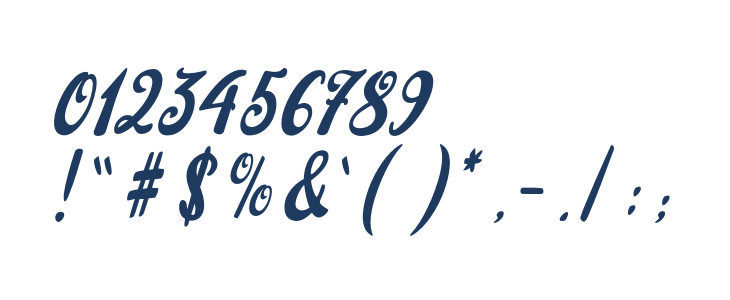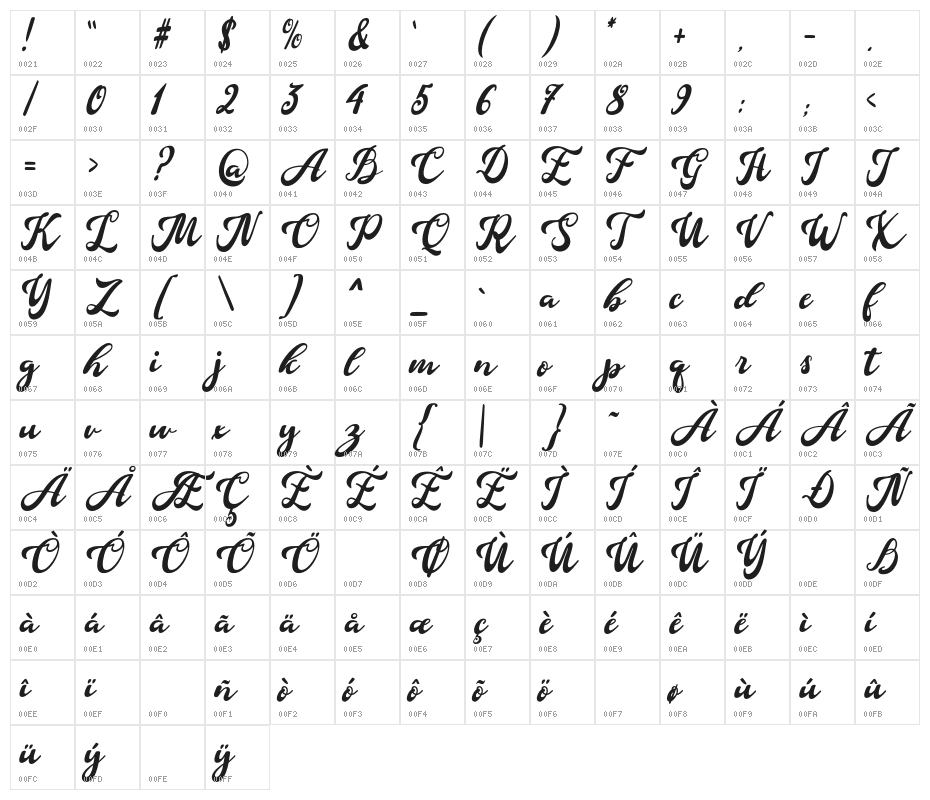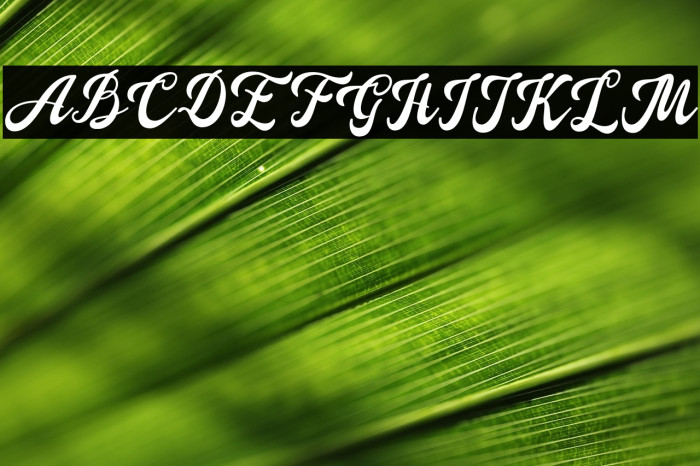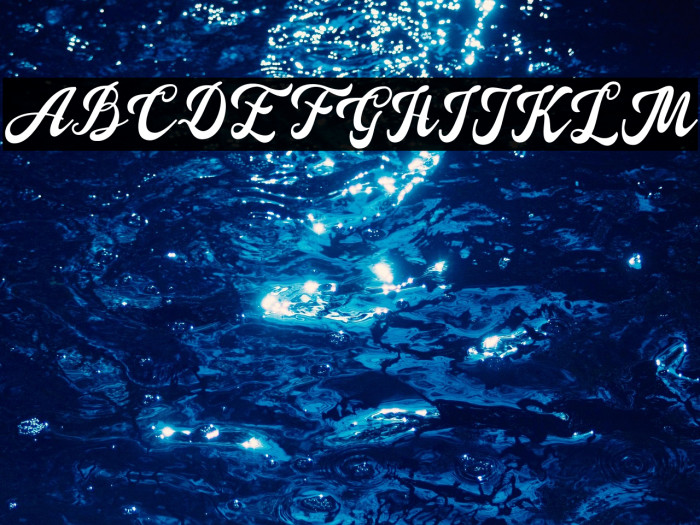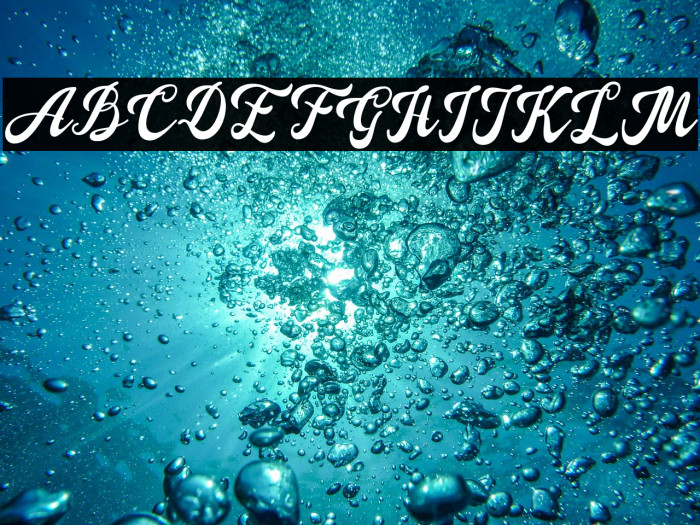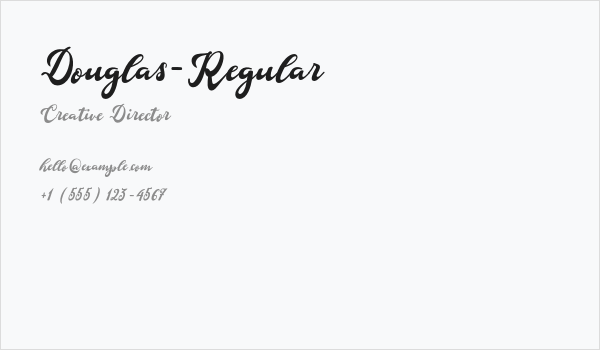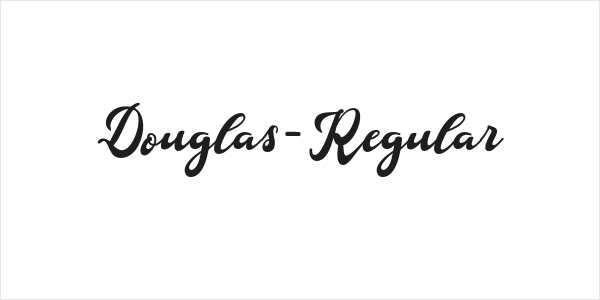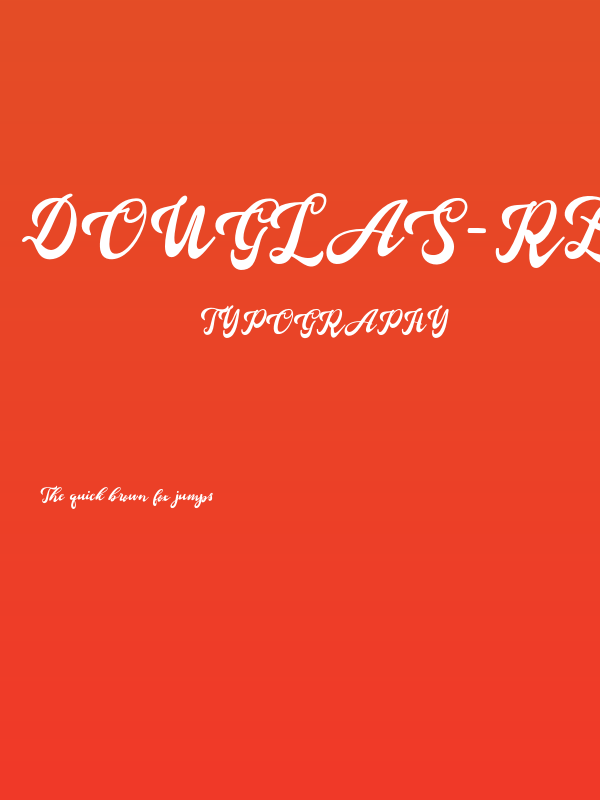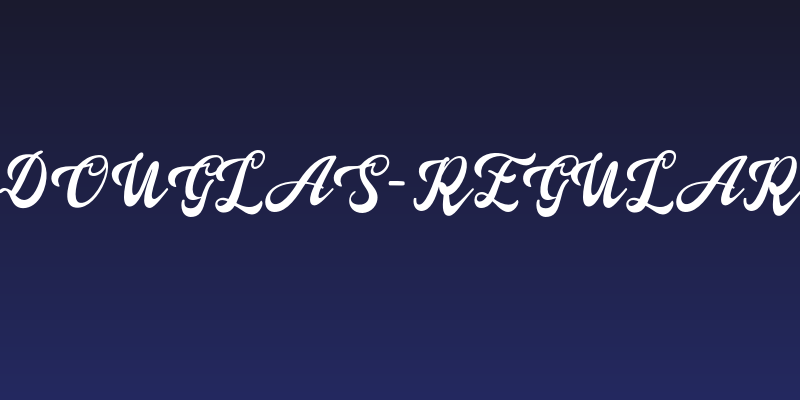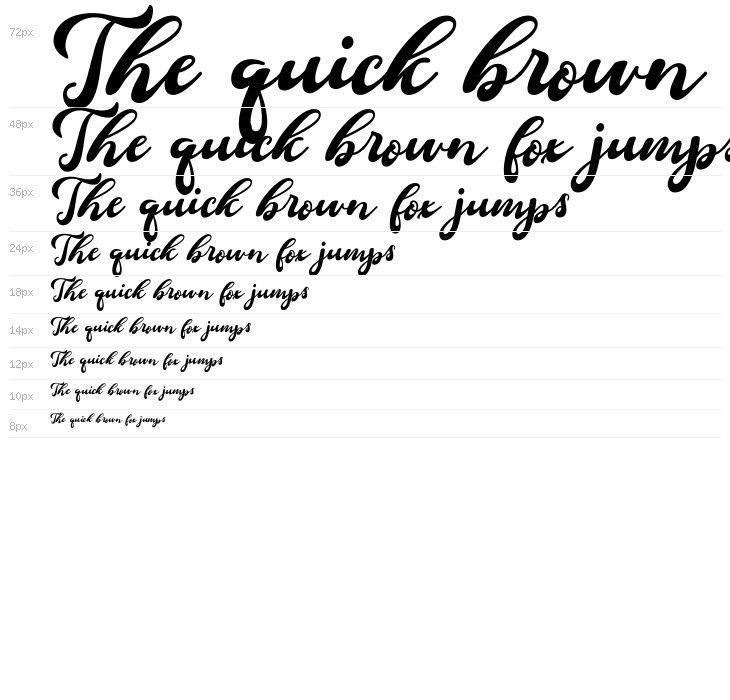
Douglas-Regular Font
Douglas-Regular Description
This font features a bold, flowing script style that exudes elegance and sophistication. The uppercase letters are intricately designed with sweeping curves and flourishes, while the lowercase letters maintain a consistent flow with a slightly more restrained flair. The numerals are equally stylish, offering a cohesive look across all characters. The special characters are well-integrated, maintaining the overall aesthetic. This font is perfect for projects that require a touch of class and personality, such as invitations, branding, or decorative headlines.
| Overall Style | Elegant, Decorative |
| Proposed Projects | Ideal for wedding invitations, luxury branding, decorative headlines, and artistic projects. |